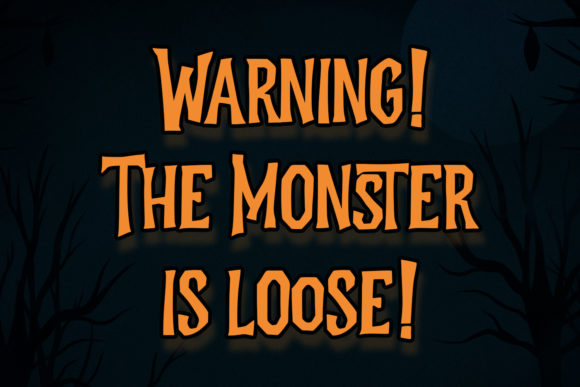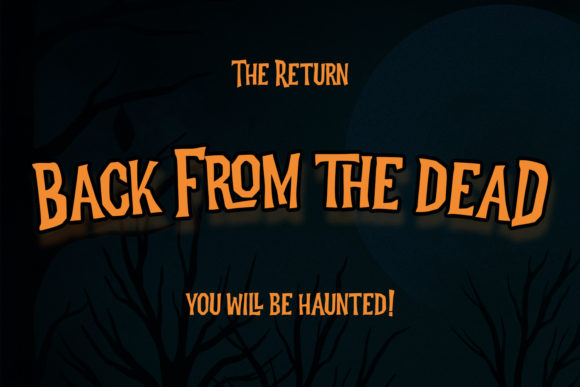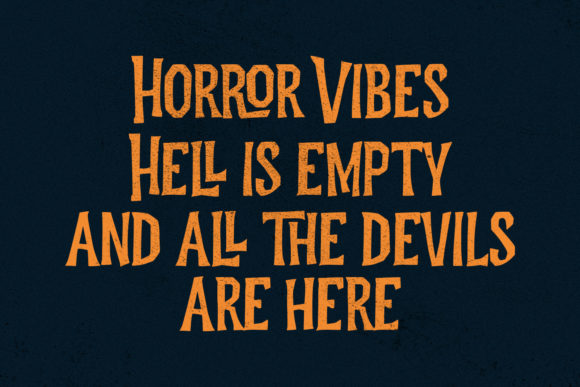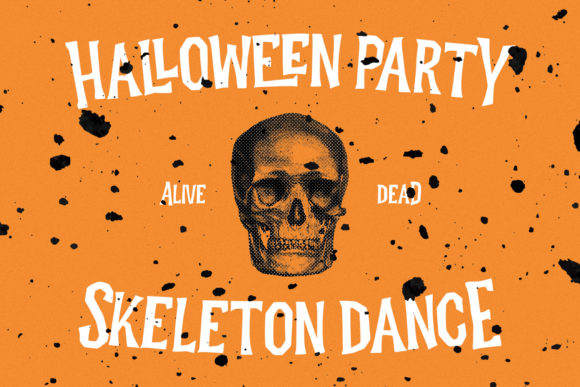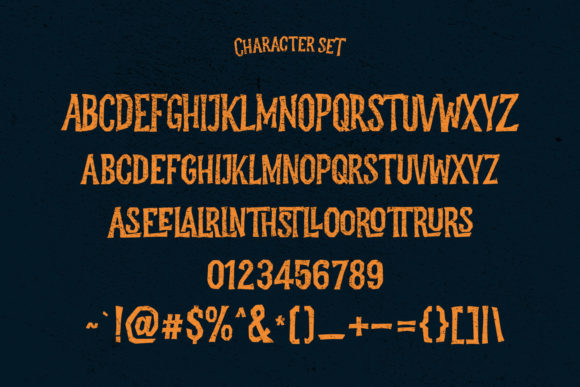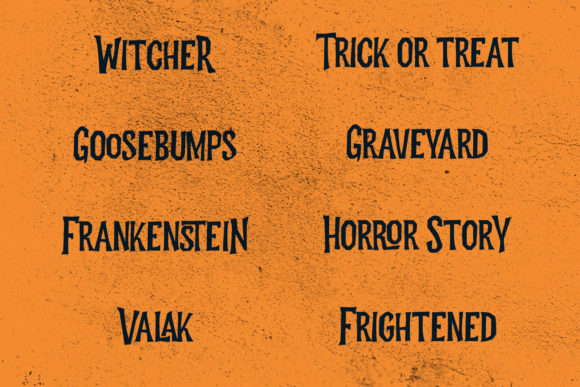
Introduction to Monstafaller Font
Have you ever stared at a blank canvas, trying to find the perfect spark to ignite your creative project? For designers, this moment can be both exhilarating and daunting. But what if you had the right tool to set your imagination ablaze? Enter the Monstafaller Font, a bold and fun display font that’s sure to give your designs a unique touch.
As a design resource, the Monstafaller Font is a game-changer. With its high-quality, uniquely shaped letters, it’s the perfect addition to any creative project that requires a distinct flair. Whether you’re working on a graphic design, a logo, or a digital art piece, this font is sure to elevate your work and make it stand out from the crowd. Plus, with its transparent background, you can easily integrate it into your design without any fuss.
Key Features of Monstafaller Font
- High-quality, professional design for creative projects and graphic design needs.
- Features a unique and playful design, making it perfect for adding a touch of whimsy to creative projects.
- Perfect for use in logos, branding, and other design elements where a fun and playful touch is desired.
Honest Review: Monstafaller Font
As a designer, I’m always on the lookout for high-quality design resources to elevate my creative projects. Recently, I stumbled upon the Monstafaller Font, and I’m excited to share my thoughts on this intriguing font.
Overall impression: I’m impressed by the Monstafaller Font’s unique style and versatility. While it may have some limitations, it’s still a valuable design resource that can add a touch of personality to any creative project. If you’re looking for a high-quality font to spice up your designs, the Monstafaller Font is definitely worth checking out.
Tips for Getting the Most Out of Monstafaller Font
Experiment with different font sizes, colors, and combinations to create unique and engaging designs. Use the Monstafaller Font as a starting point and add your own creative flair to make it truly stand out.